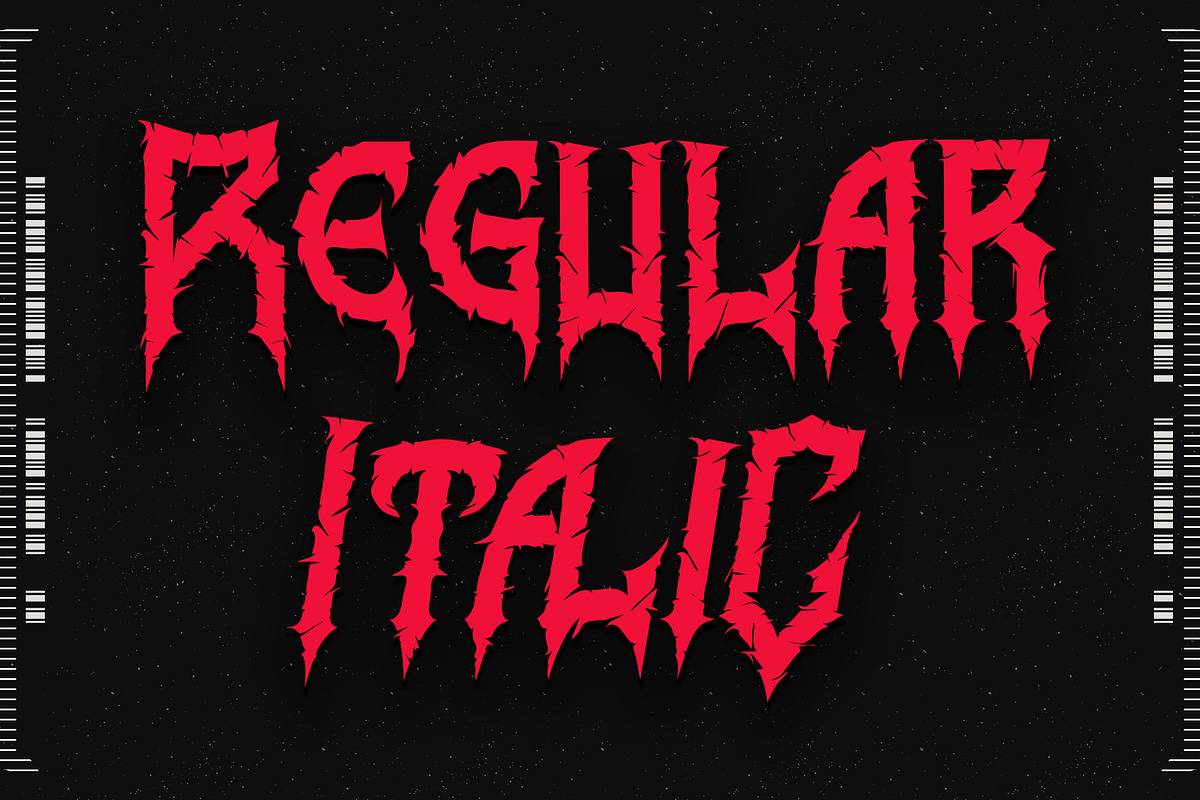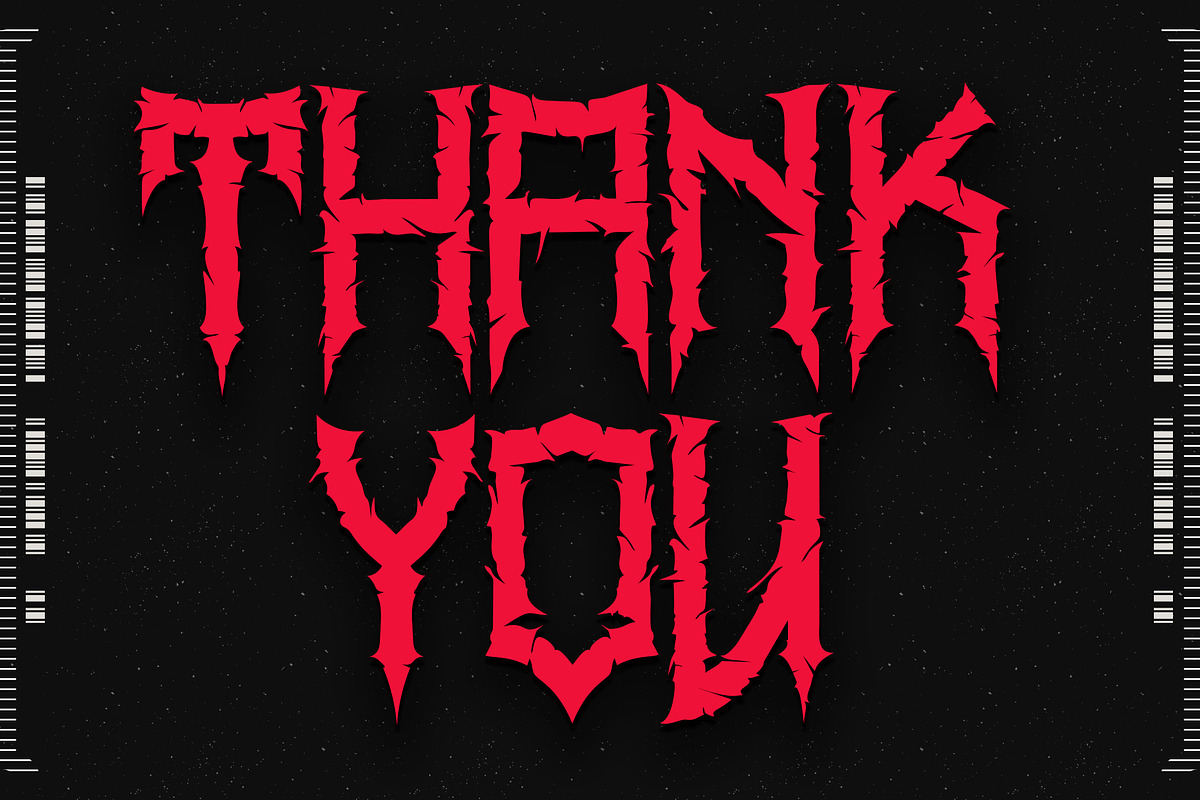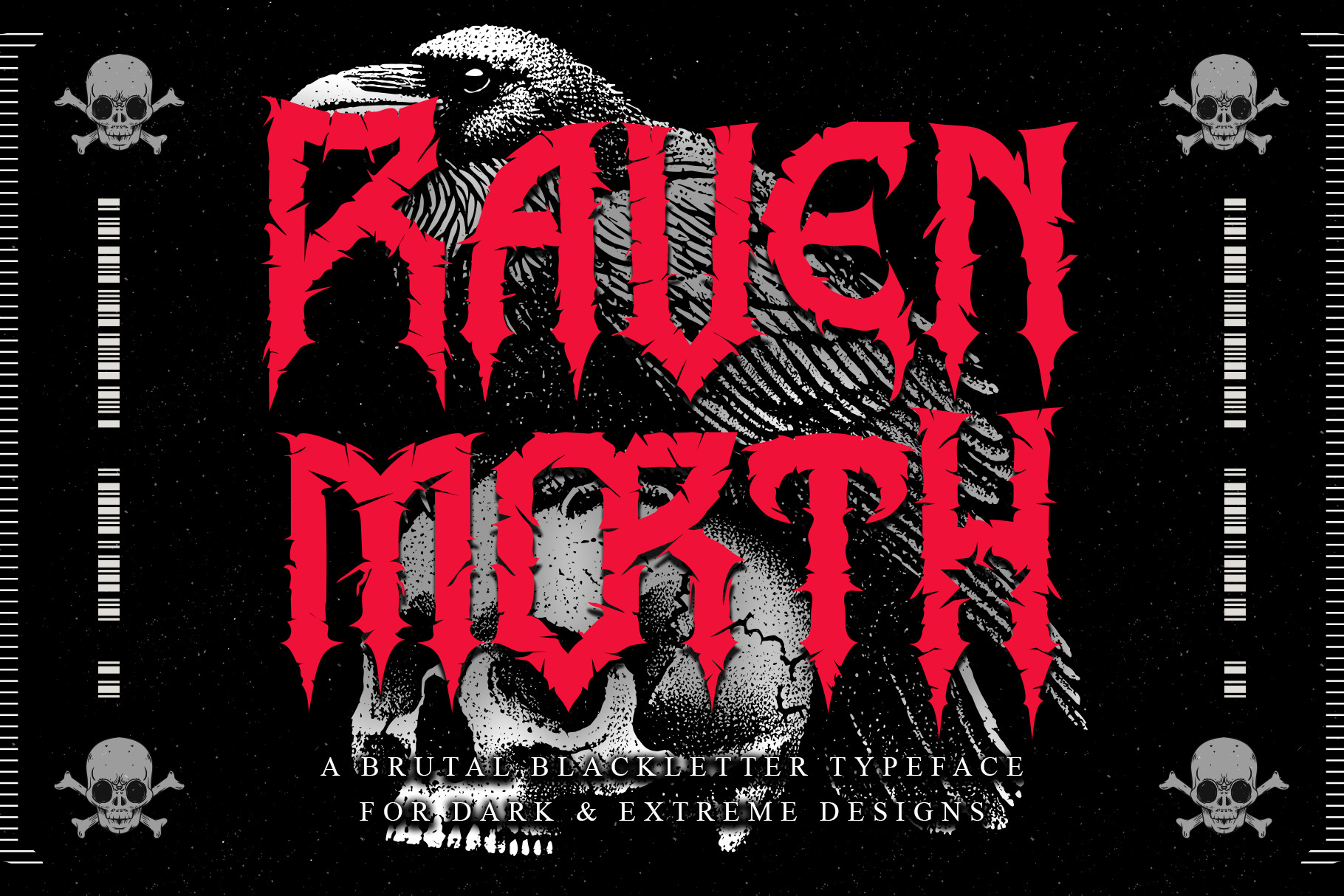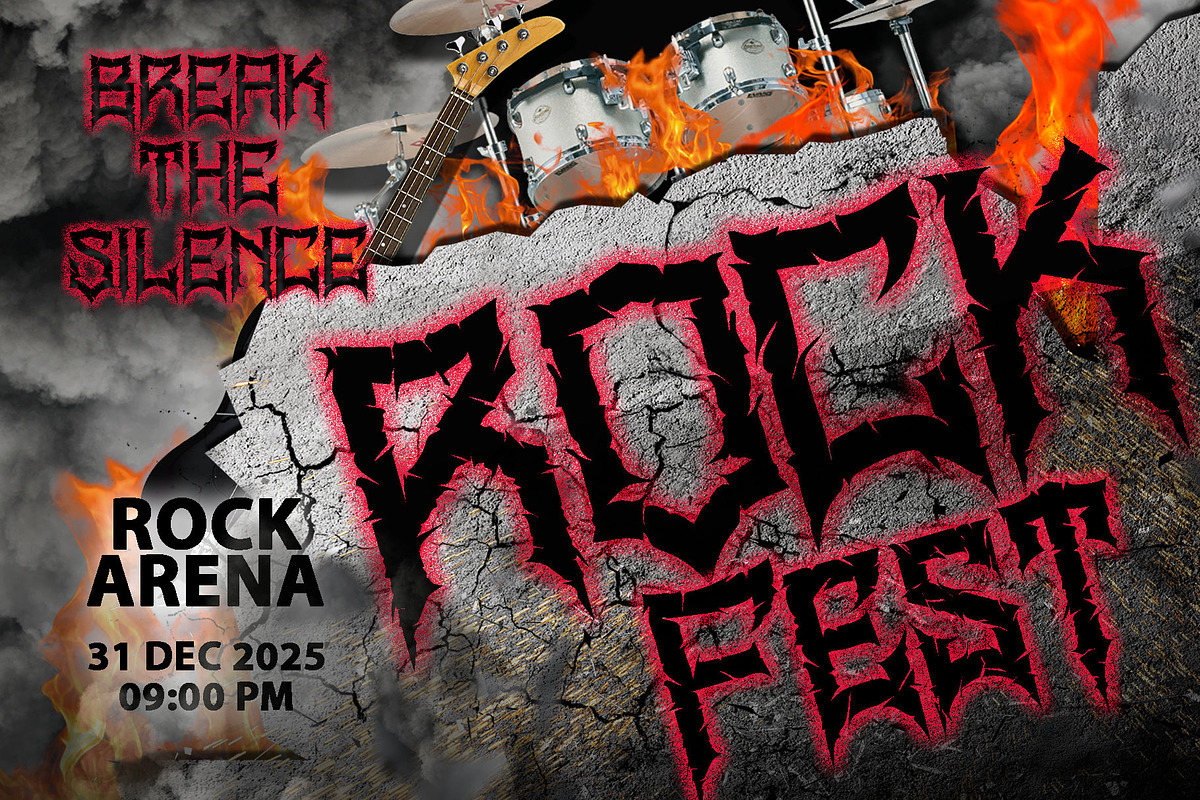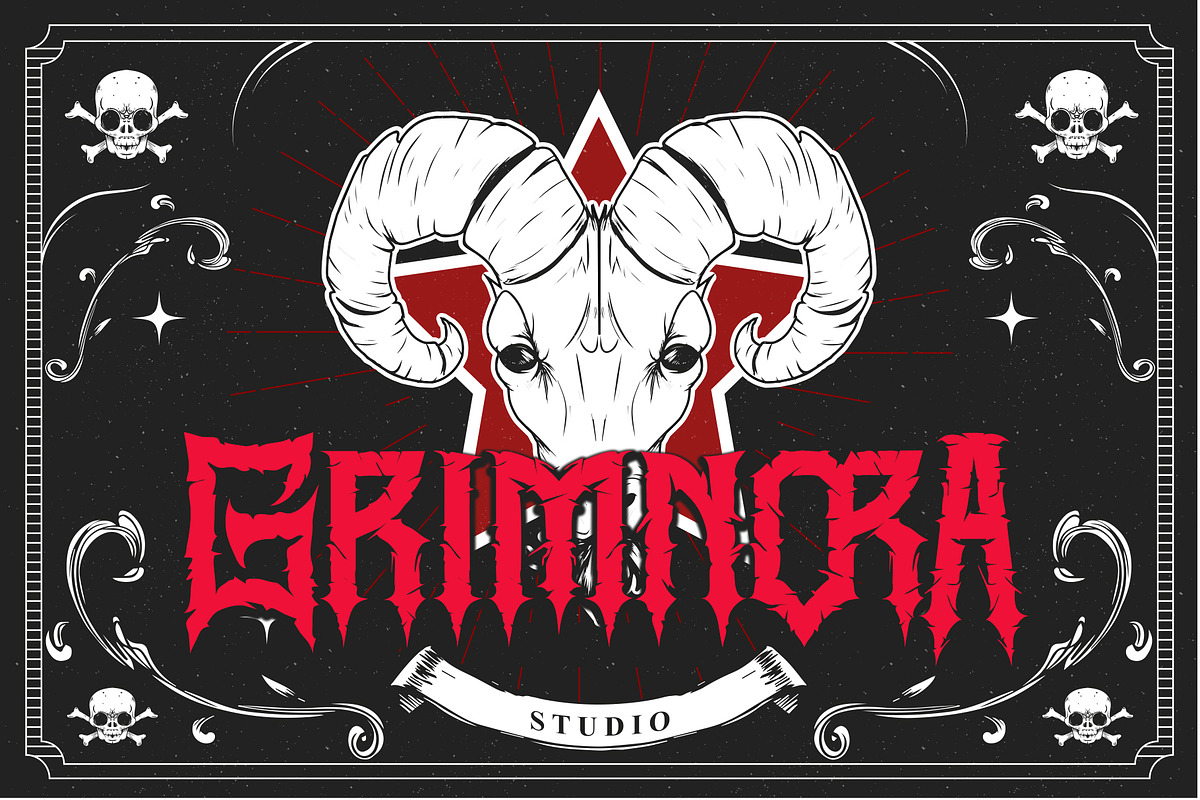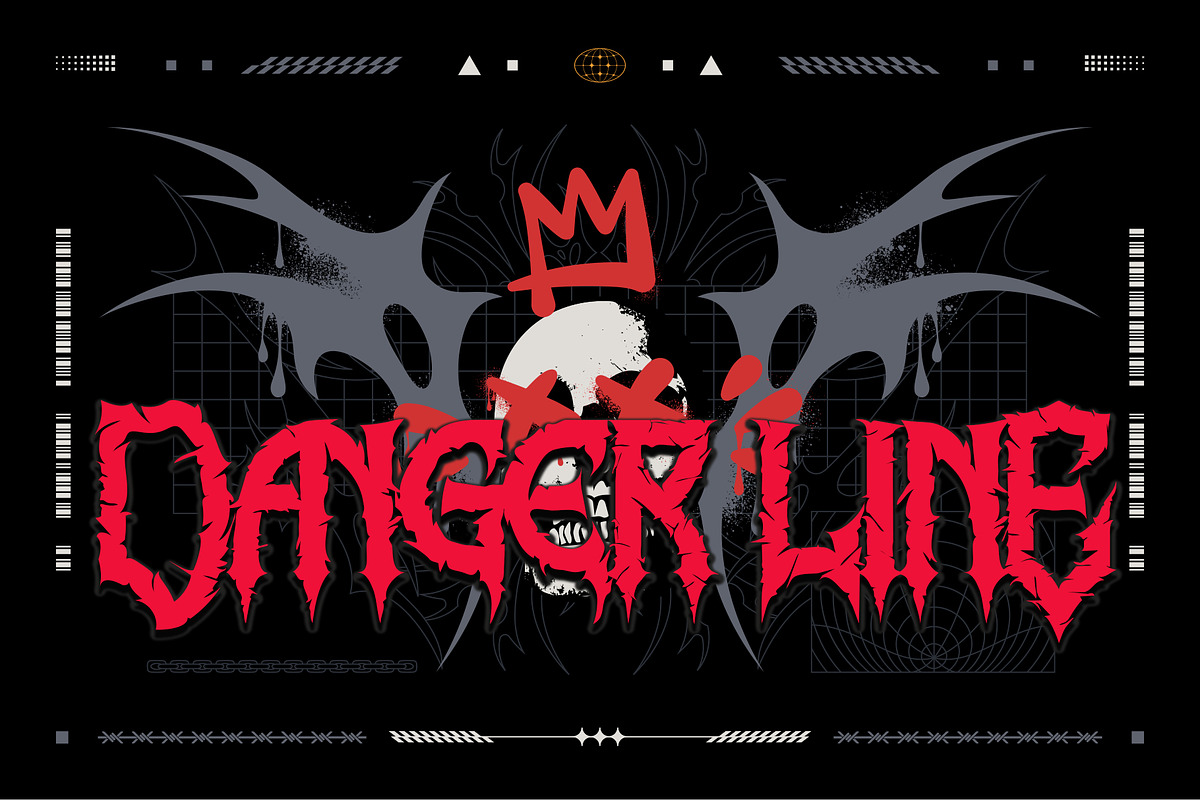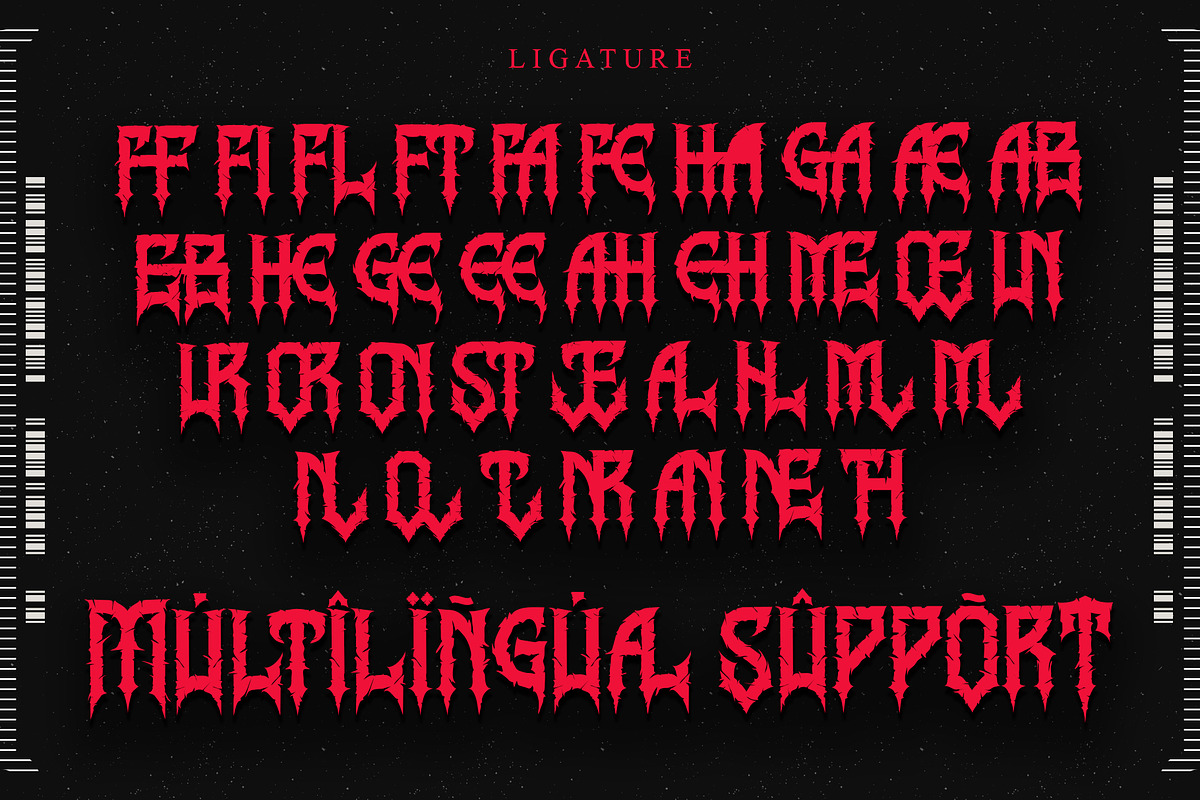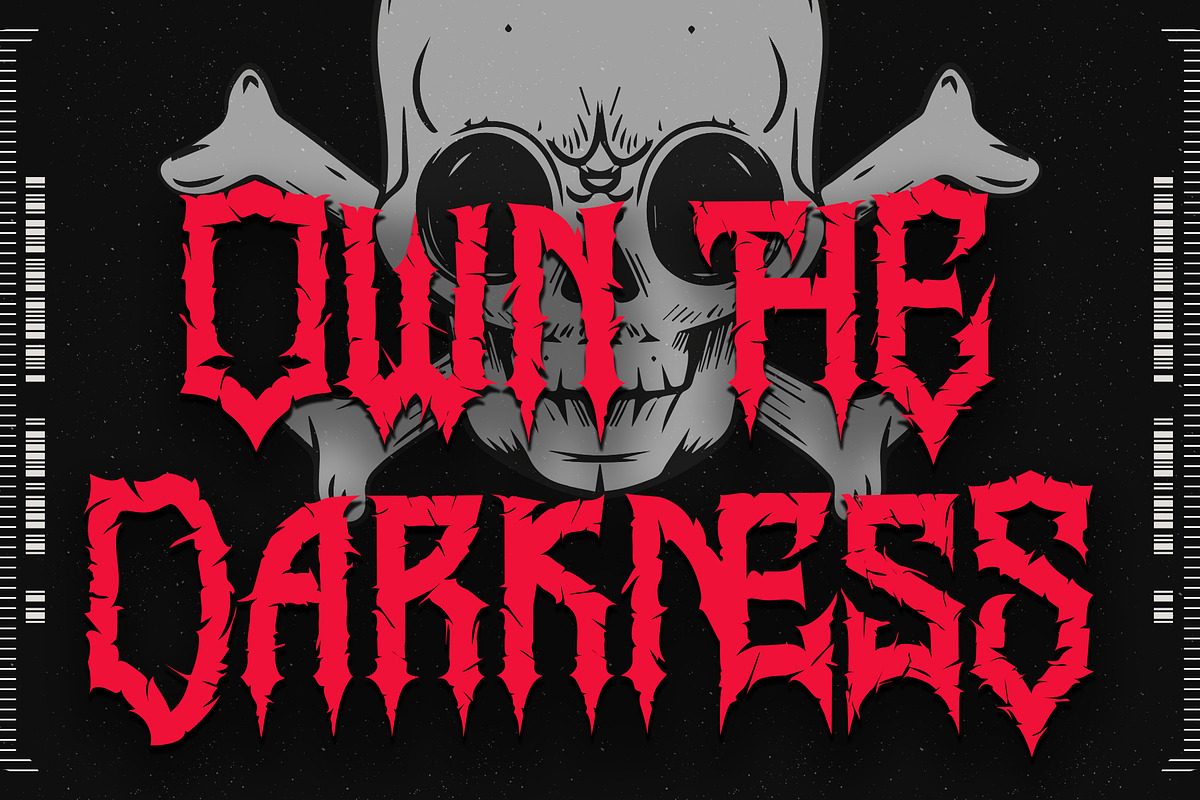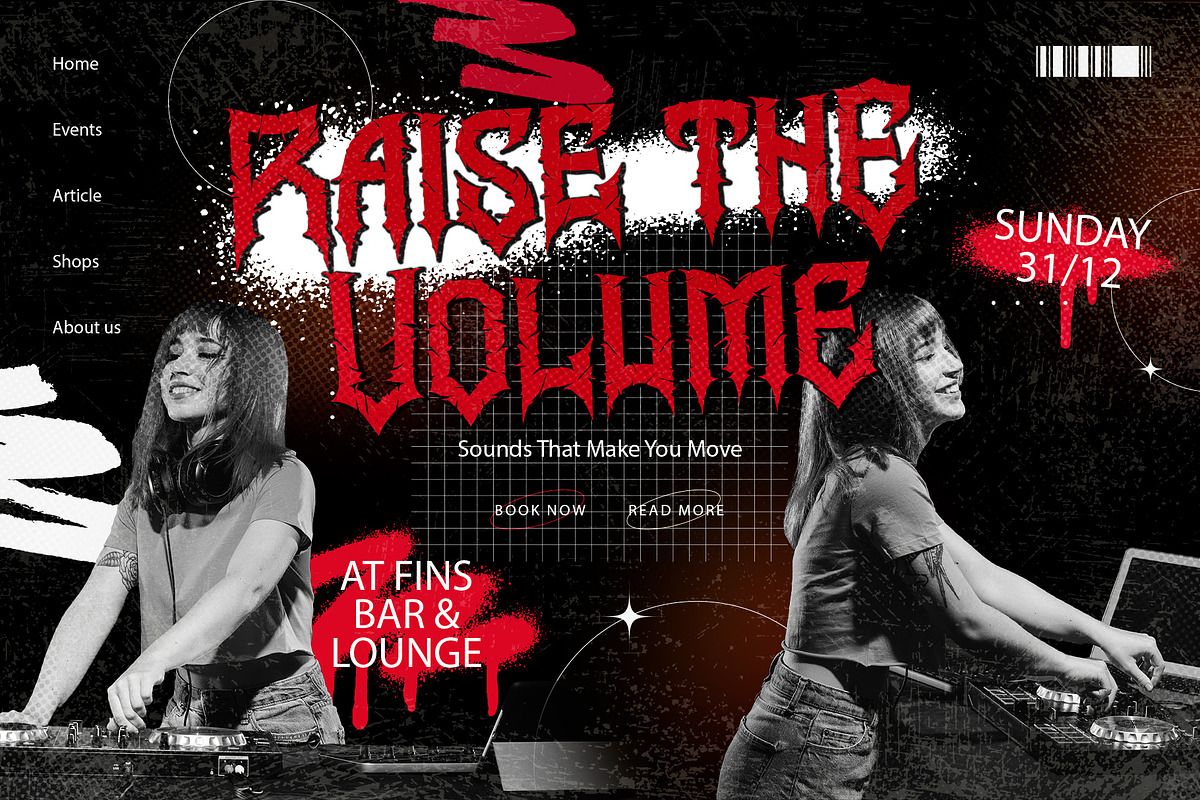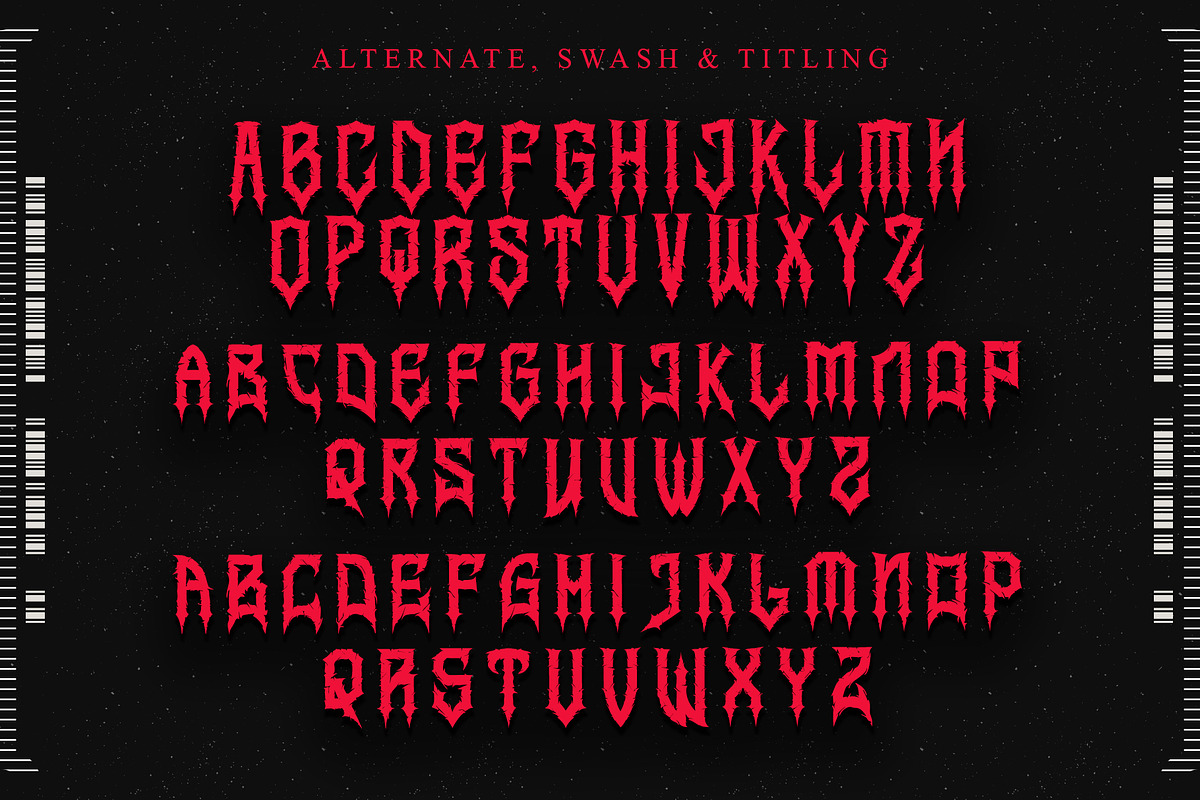
Ravenmorth – Black Metal Gothic Font
Step into the shadowed dominion of Ravenmorth, a font born from darkness, sharpened by chaos, and crowned with pure metal ferocity. Every curve and jagged stroke carries the essence of ancient power—untamed, ruthless, and unbound. Ravenmorth channels the raw spirit of black metal and gothic mystique, forging letterforms that feel carved from bone, steel, and night itself.
Engineered for album covers, occult branding, horror titles, merch prints, and any design that craves a brutal, commanding presence, Ravenmorth doesn’t simply decorate—it dominates. Its sinister details and fearless structure pull the viewer into a realm where shadows rule and the weak tremble.
Embrace the darkness. Claim the throne. Let Ravenmorth become the voice of your most relentless creations—a masterpiece crafted for those who design not for the faint of heart, but for the fearless.
- Support multilingual; ä ö ü Ä Ö Ü ß ¿ ¡
- uppercase letters
- Alternate, swash, titling, & Ligature